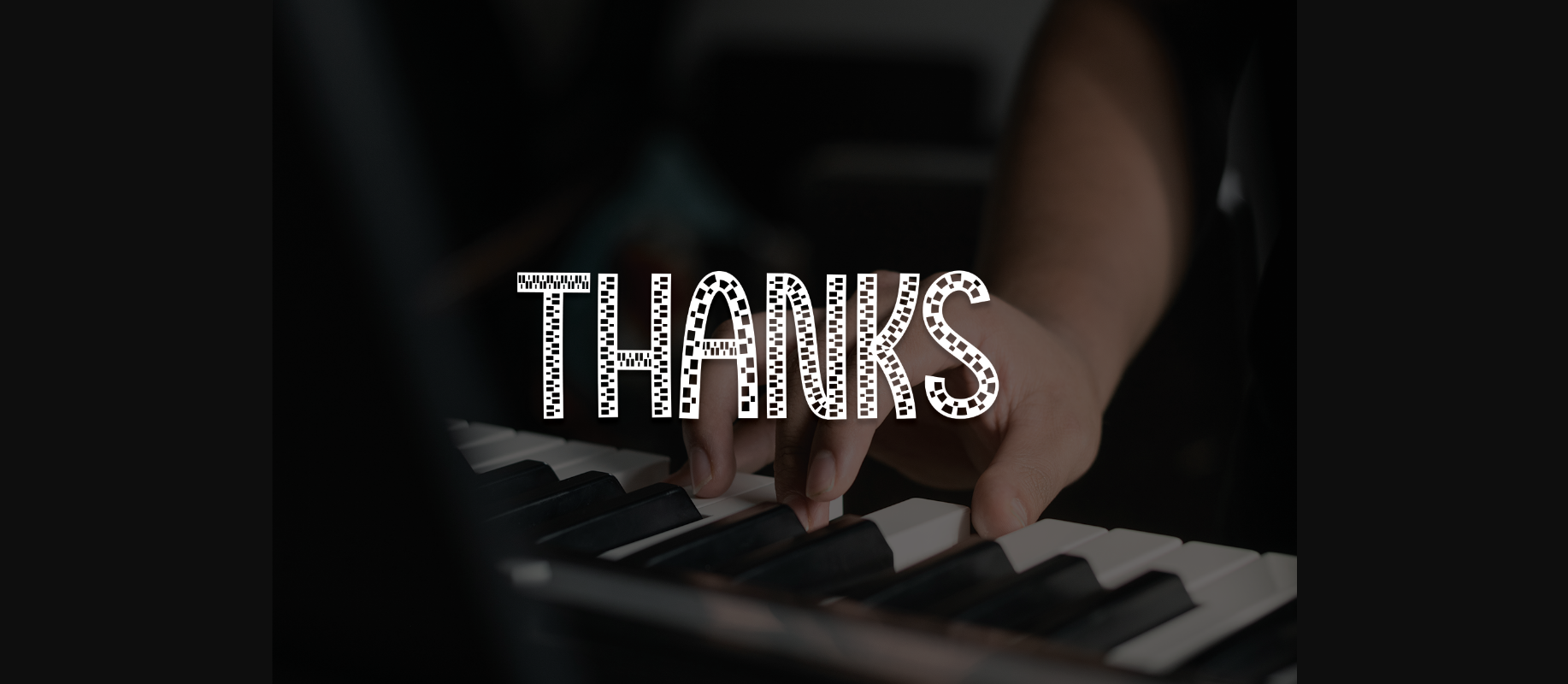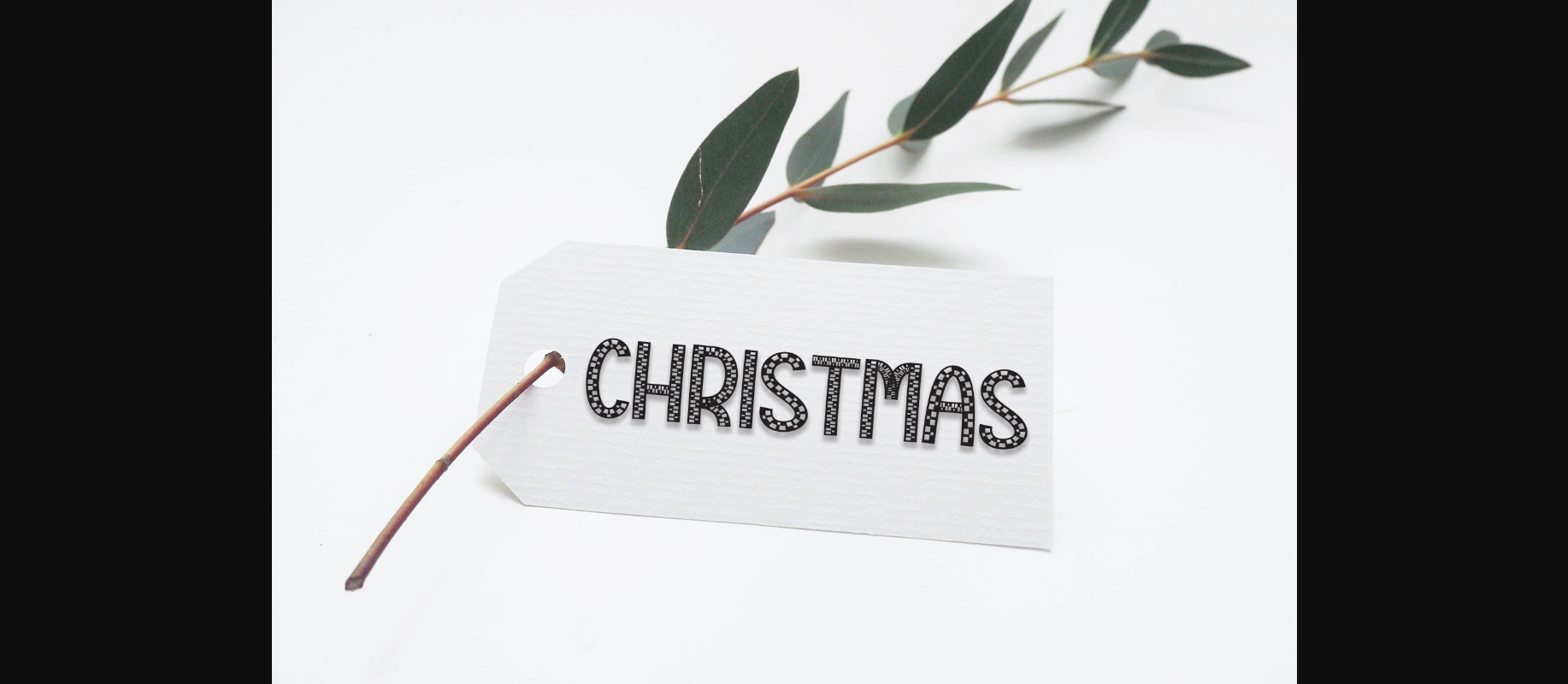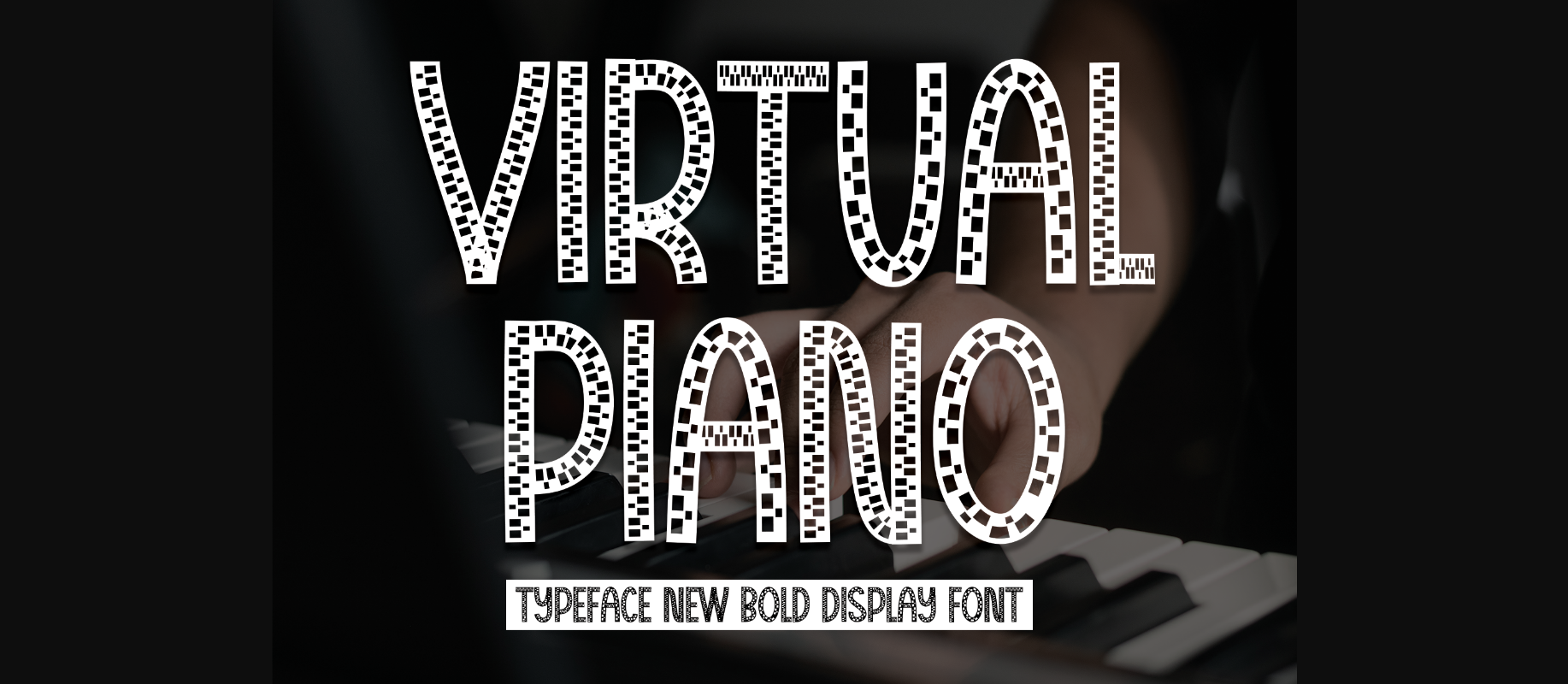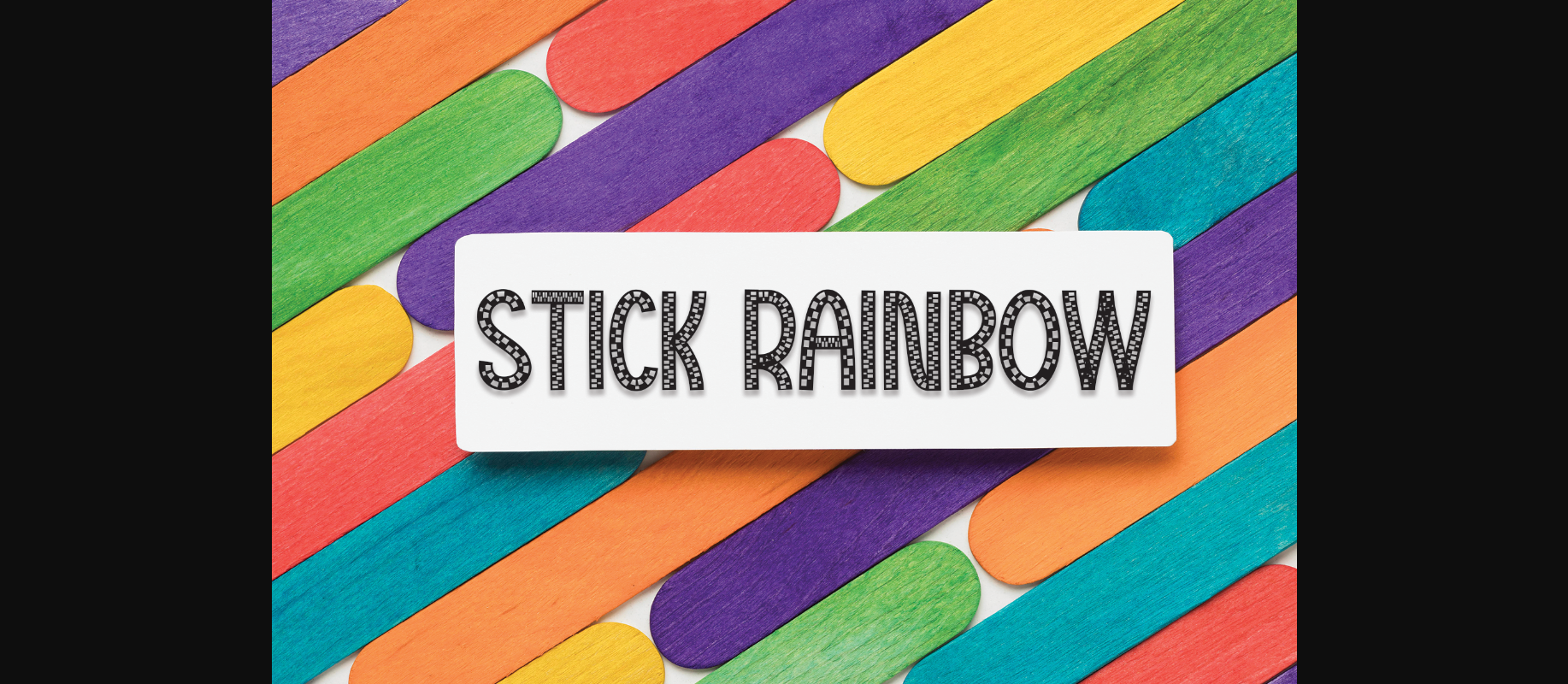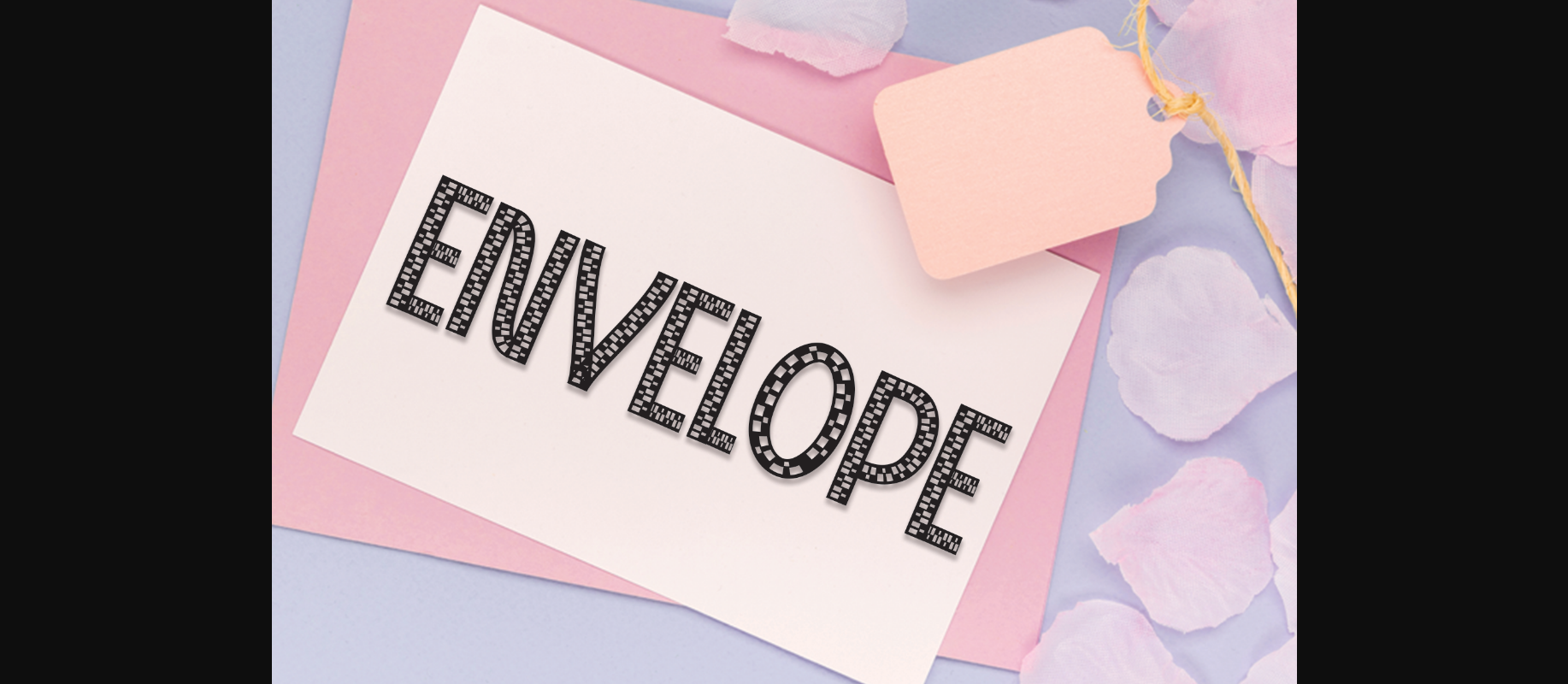
About Virtual Piano Font
Virtual Piano is a modern and playful decorative font. Its latest style letters are perfect for wall displays, wedding invitations, social media post logos, advertisements, product packaging, product designs, labels, photography, watermarks, invitations, stationery, and any project that requires unique typography.